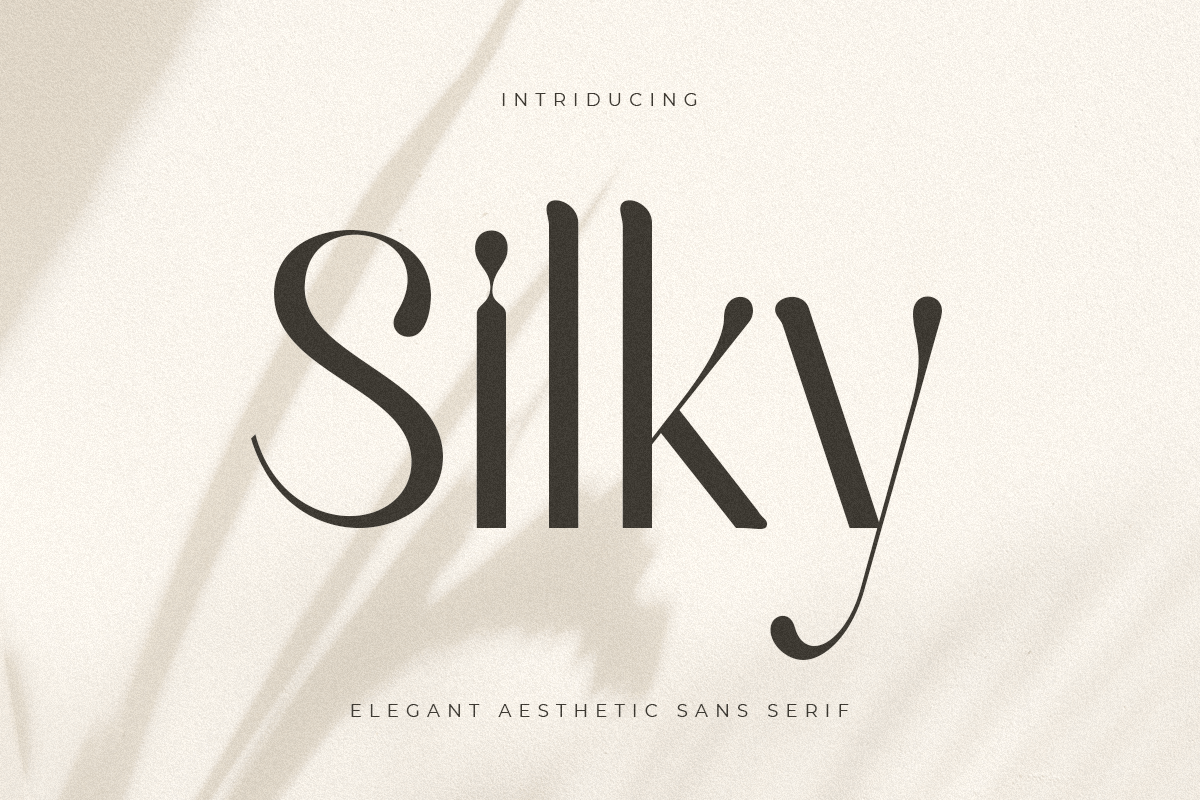
Silky
-Elegant Aesthetic Sans Serif
Silky
A Sans serif that we created special for elegant branding needs, with extra ligatures in unique shape will be ready to add value of your brand. It so nice to leverage designer or product owner that need solutions to make their design look more classy and modern. And specially for this font, We prepared any ligatures characters to help you create unlimited variations for your creative needs.
Silky Sans serif font ready with:
• Any options to get creative variations (combination of Ligatures)
• Preview as a inspirations that you can do with Silky font